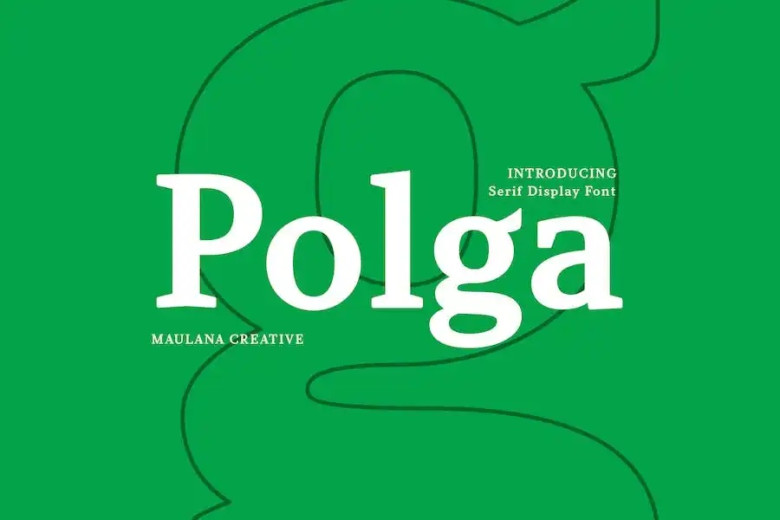
Polga Font
Polga is a Classical vibes modern yet Display serif font. Bold stroke, bold fun character, with a bit of ligature and alternates. To give you an extra creative work. Polga font supports multilingual more than 100+ language.
This font is good for the logo design, Social media, Movie Titles, Books Titles, a short text even a long text letter and good for your secondary text font with a script or serif. Make a stunning work with Polga font.
Polga Display Serif Font